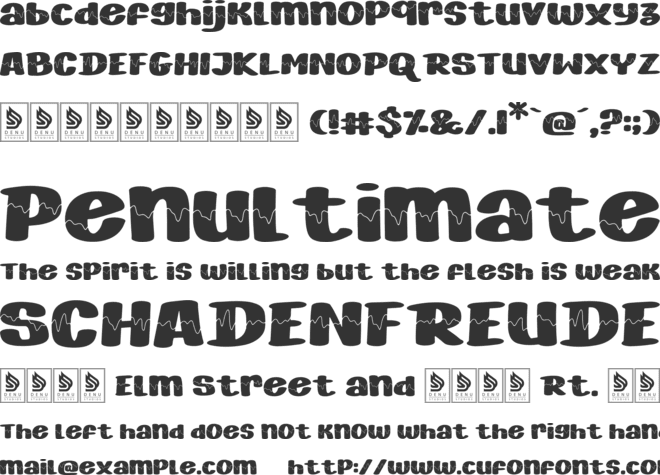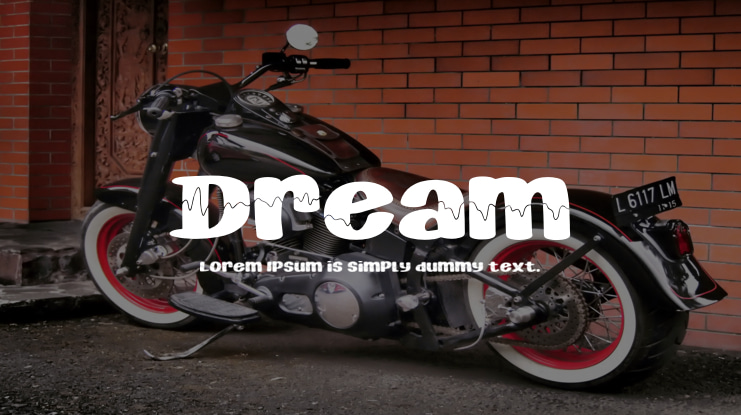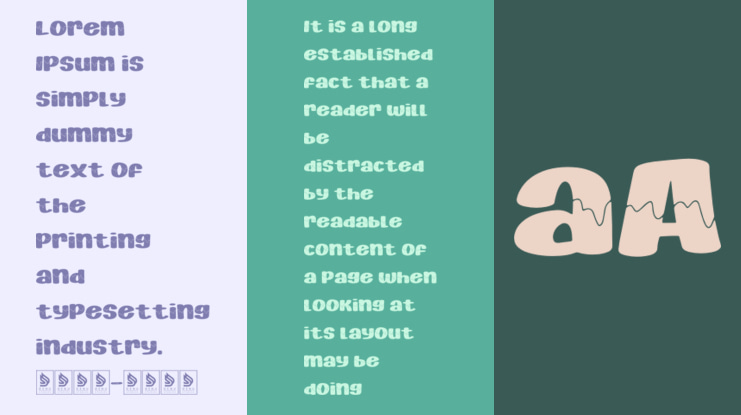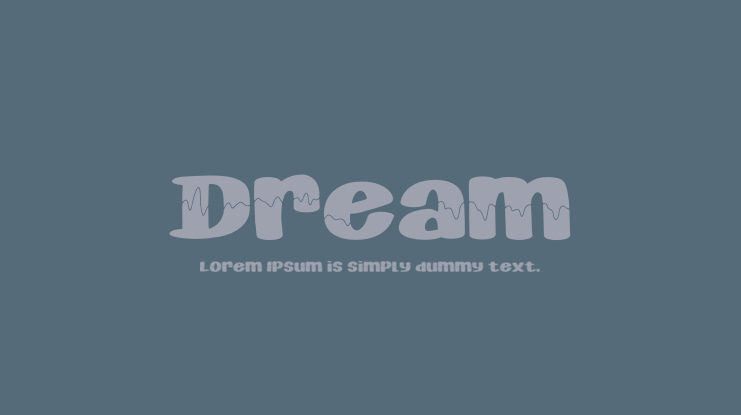
Dream Font
Dream Bold | Bold Display Font is ideal for a variety of projects including logos, branding, homeware designs, product packaging, mugs, quotes, posters, shopping bags, t-shirts, book covers, name cards, invitations, greeting cards, labels, photography, watermarks, special events, and any other projects requiring a bold display font touch.